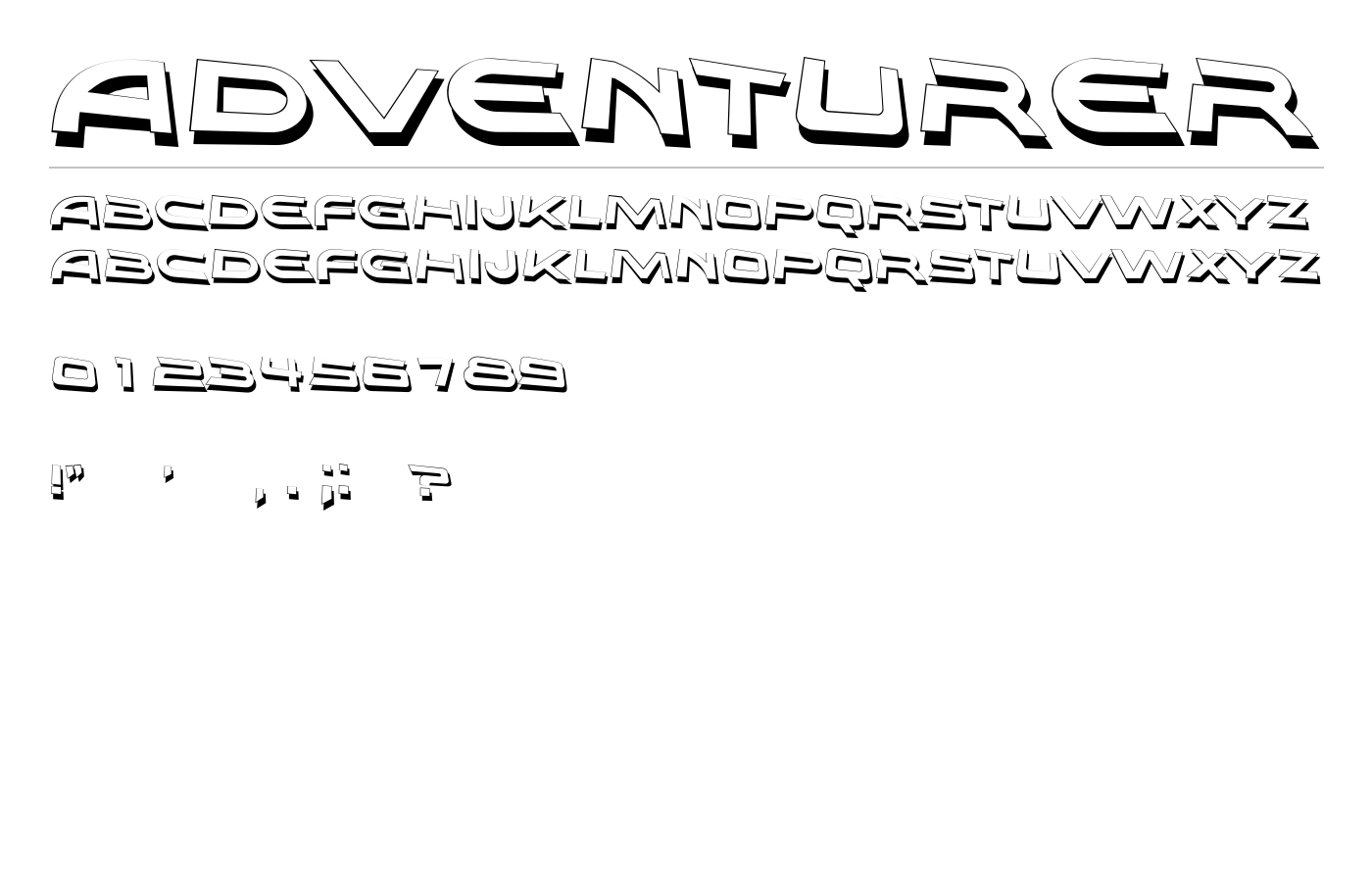
Adventurer is a bold, playful sans serif font with a strong 3D shadow effect that gives it a dynamic and energetic feel. Its wide, geometric letterforms with irregular angles convey a sense of movement and excitement, making it perfect for adventurous, fun, and youthful branding or eye-catching headlines. This font works especially well for posters, logos, and packaging that aim to stand out with a lively and spirited personality.
Adventurer Font
About Adventurer Font
| Font family | Adventurer Font |